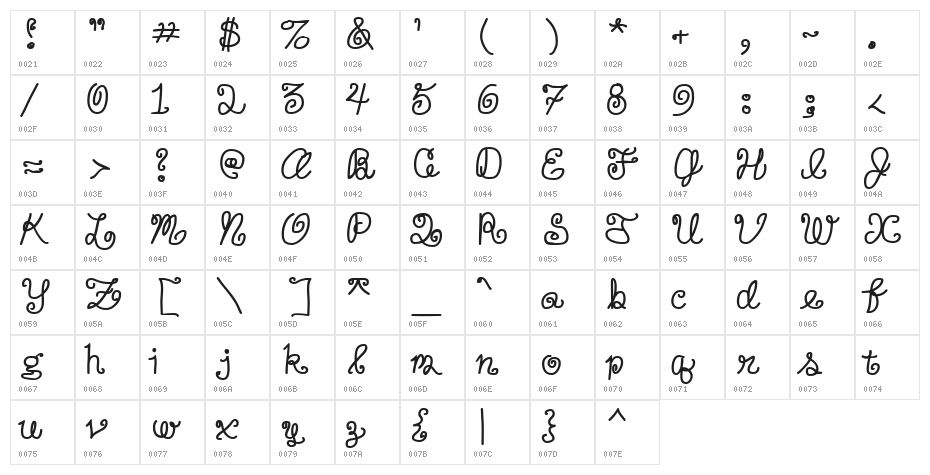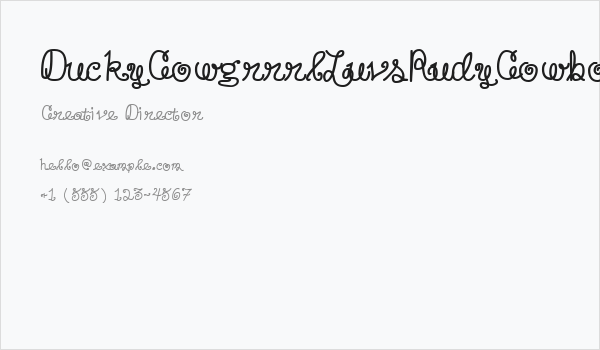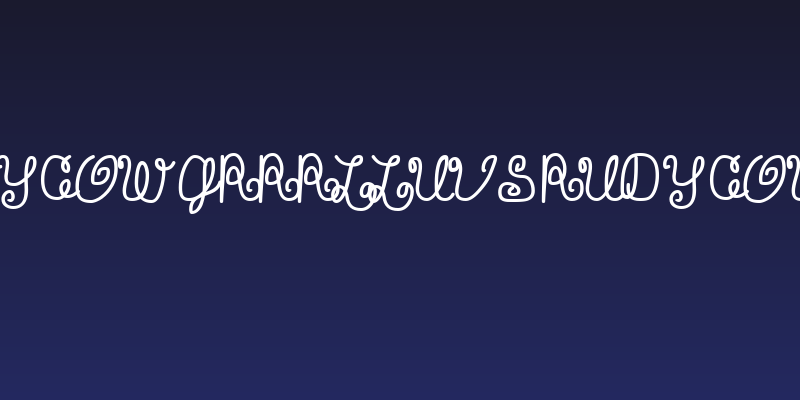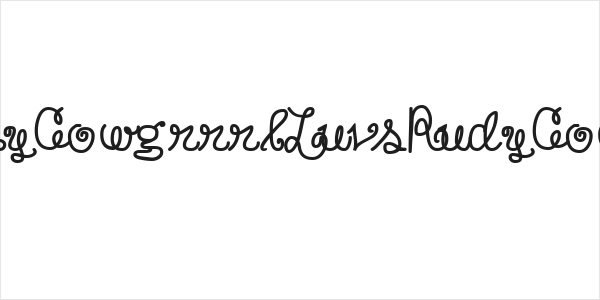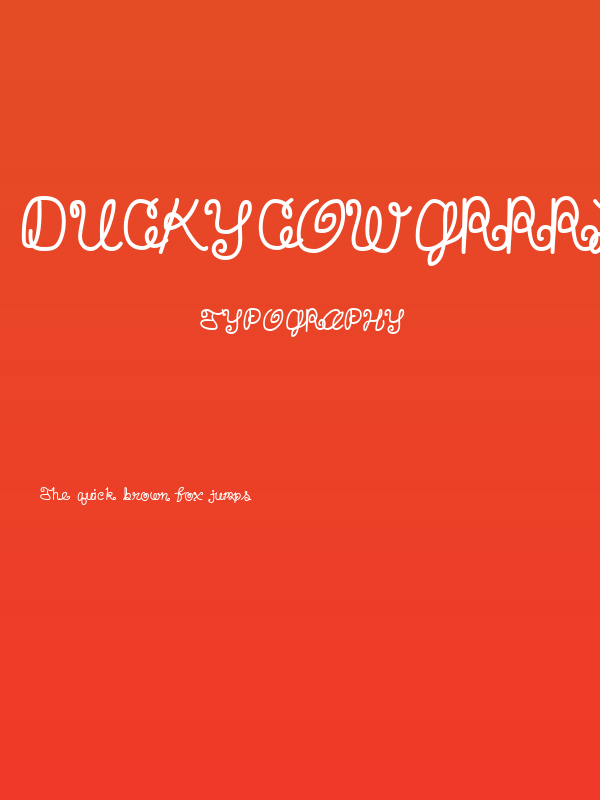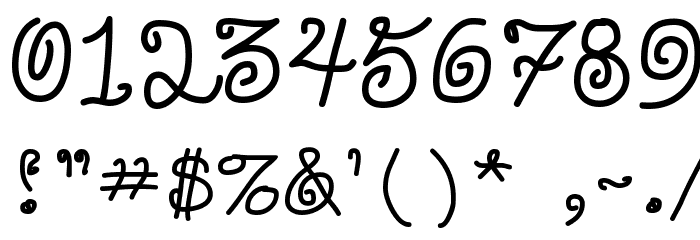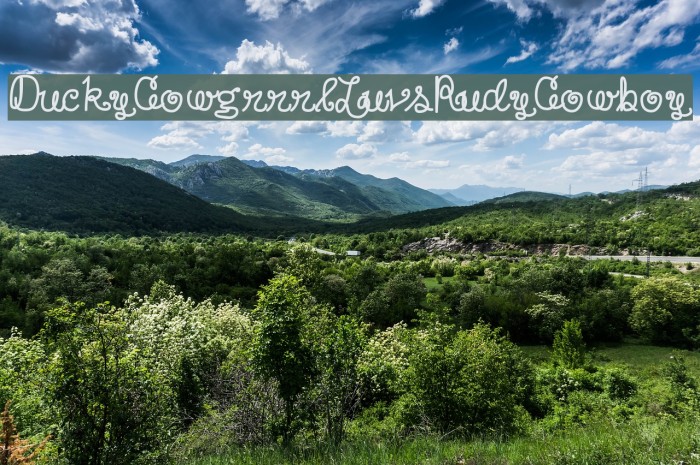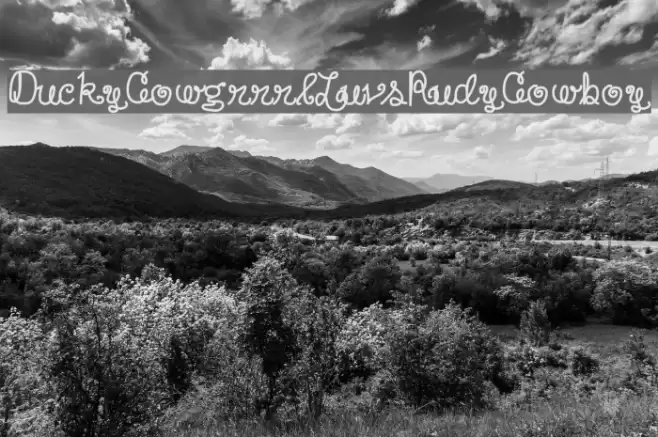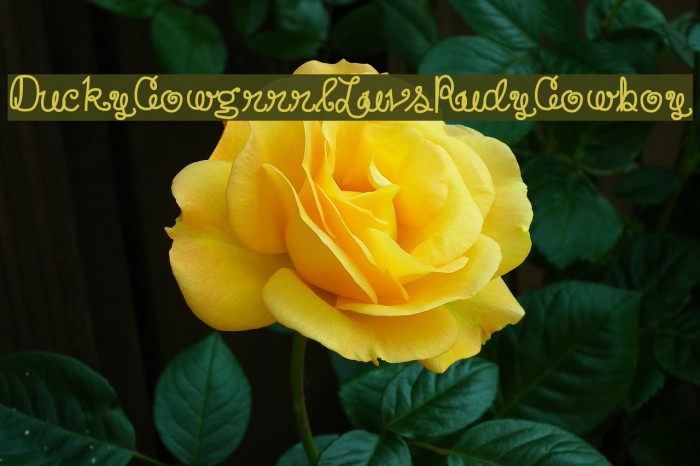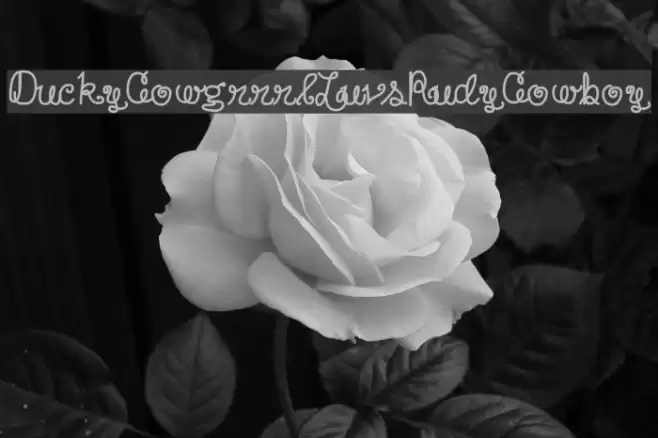
DuckyCowgrrrlLuvsRudyCowboy Font
DuckyCowgrrrlLuvsRudyCowboy Description
This font features a playful and whimsical design with a handwritten style. The characters are adorned with curls and loops, giving them a lively and dynamic appearance. The uppercase letters are bold and expressive, while the lowercase letters maintain a consistent flow with a slightly more subdued flair. Numbers are crafted with the same playful curves, ensuring a cohesive look throughout. Special characters are included, each maintaining the font's unique style. This font is perfect for projects that require a touch of fun and creativity.
| Use Case | Logos, Headlines, Creative projects |
| Proposed Projects | Ideal for children's books, playful branding, greeting cards, and creative invitations. |